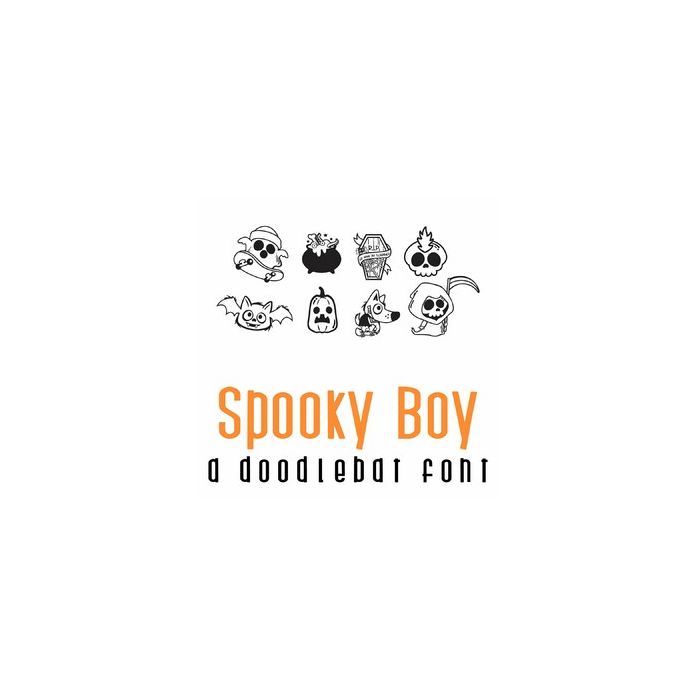
This fun doodlebat font features 26 boyish Halloween images perfect for parties, crafts, gifts, decor, card making, scrapbooking, planner stickers and more!